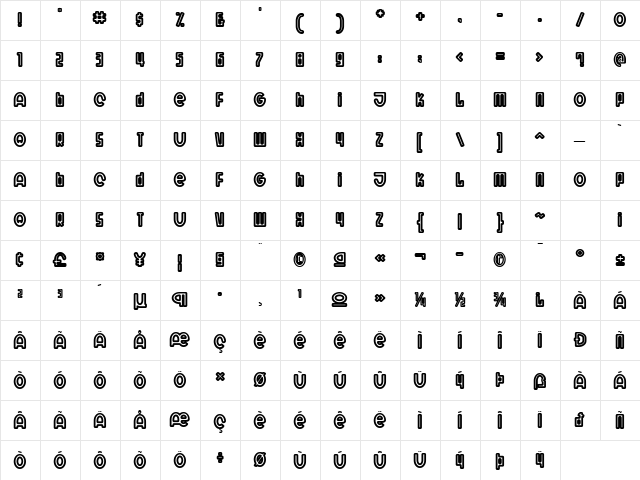
Wit Bold Font Preview
Wit Bold
Wit Bold Font Details
Design Context for Wit Typeface
Wit is a composed and adaptable typeface that performs quietly and consistently across a wide range of design contexts. The heavy weight commands attention and anchors typographic hierarchies.